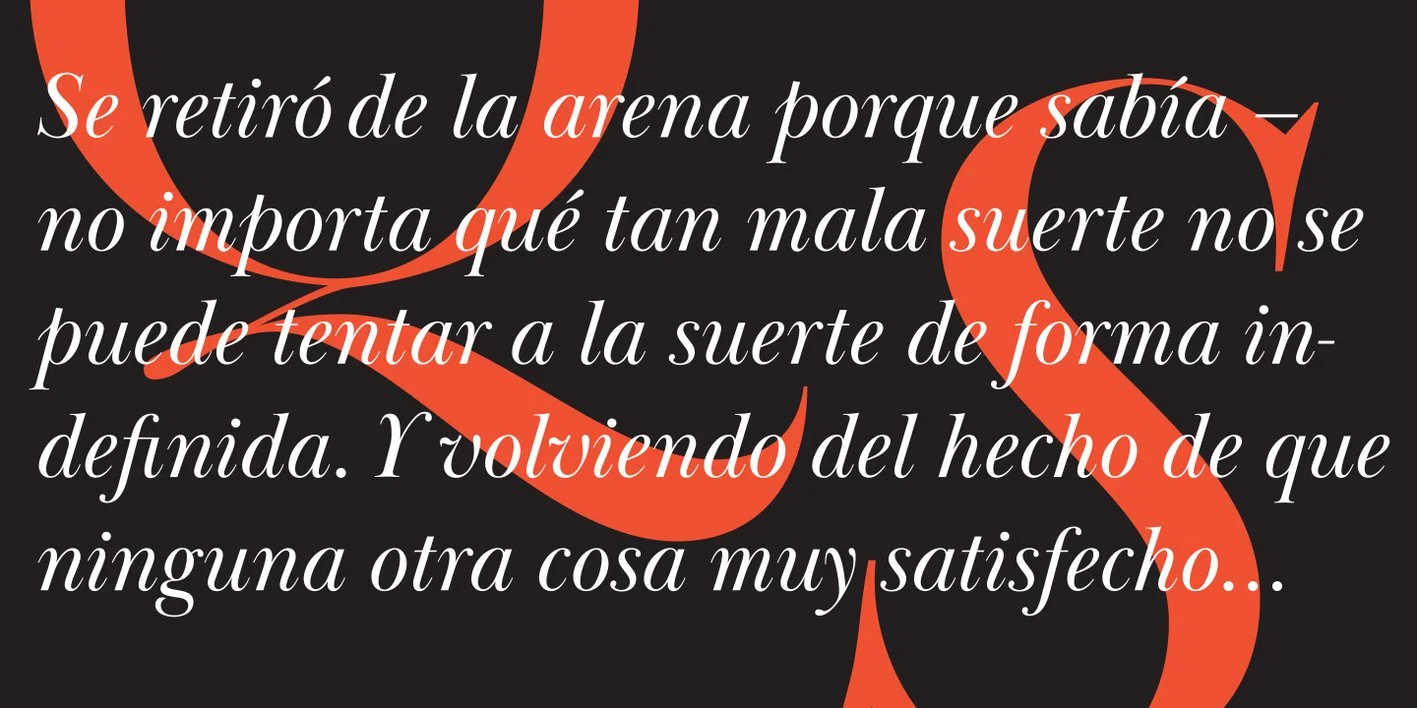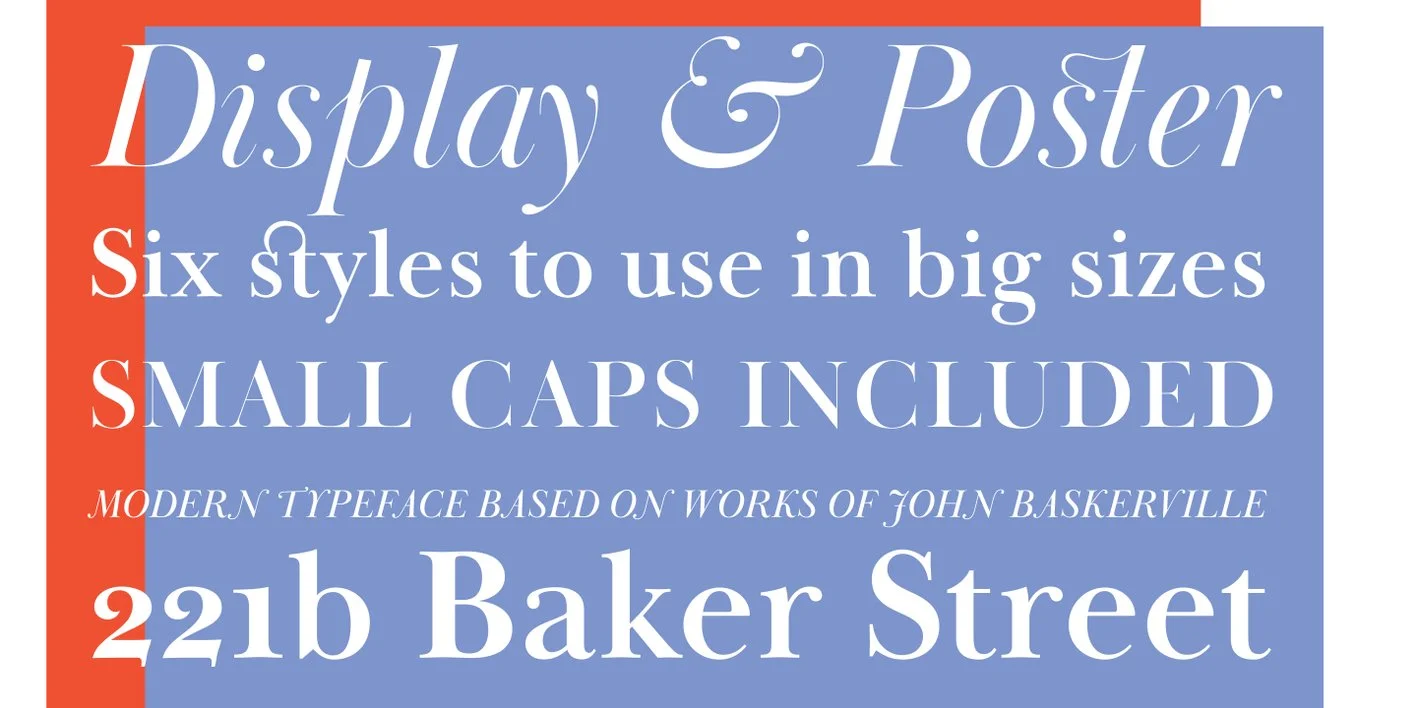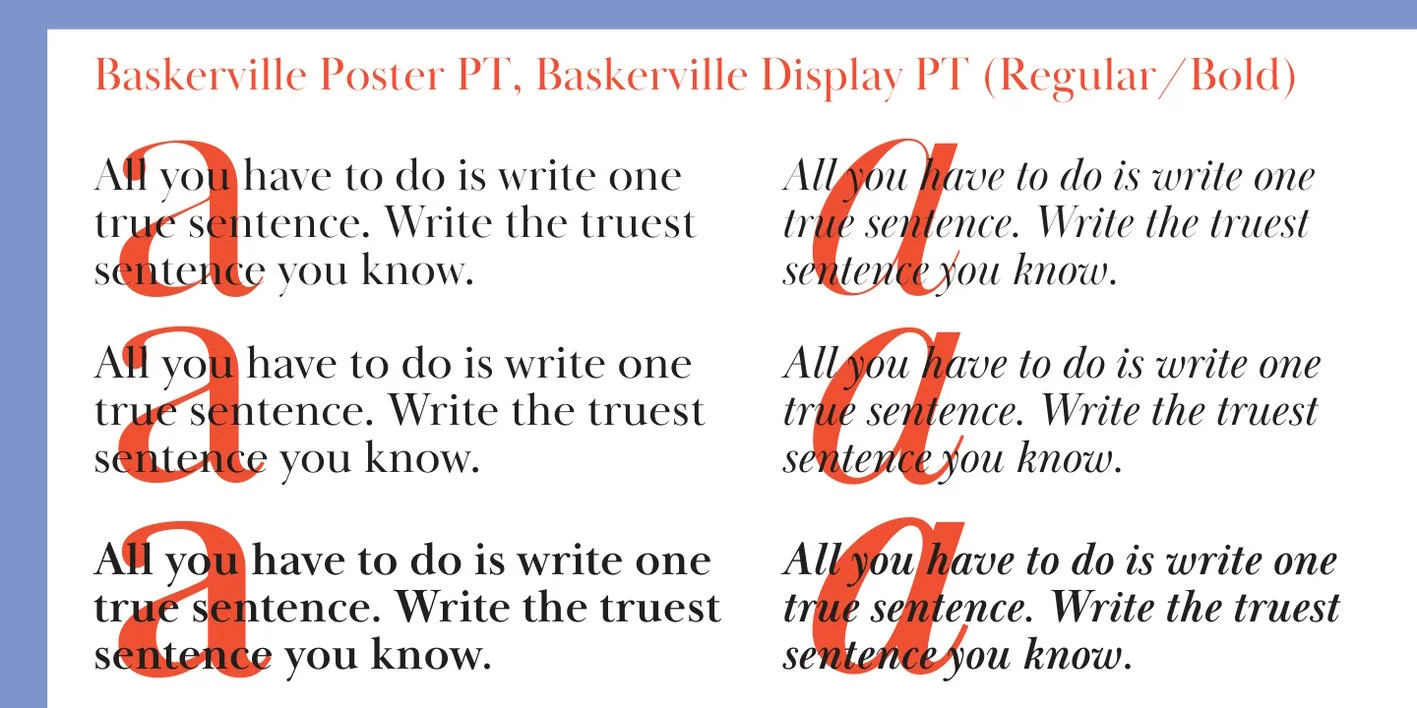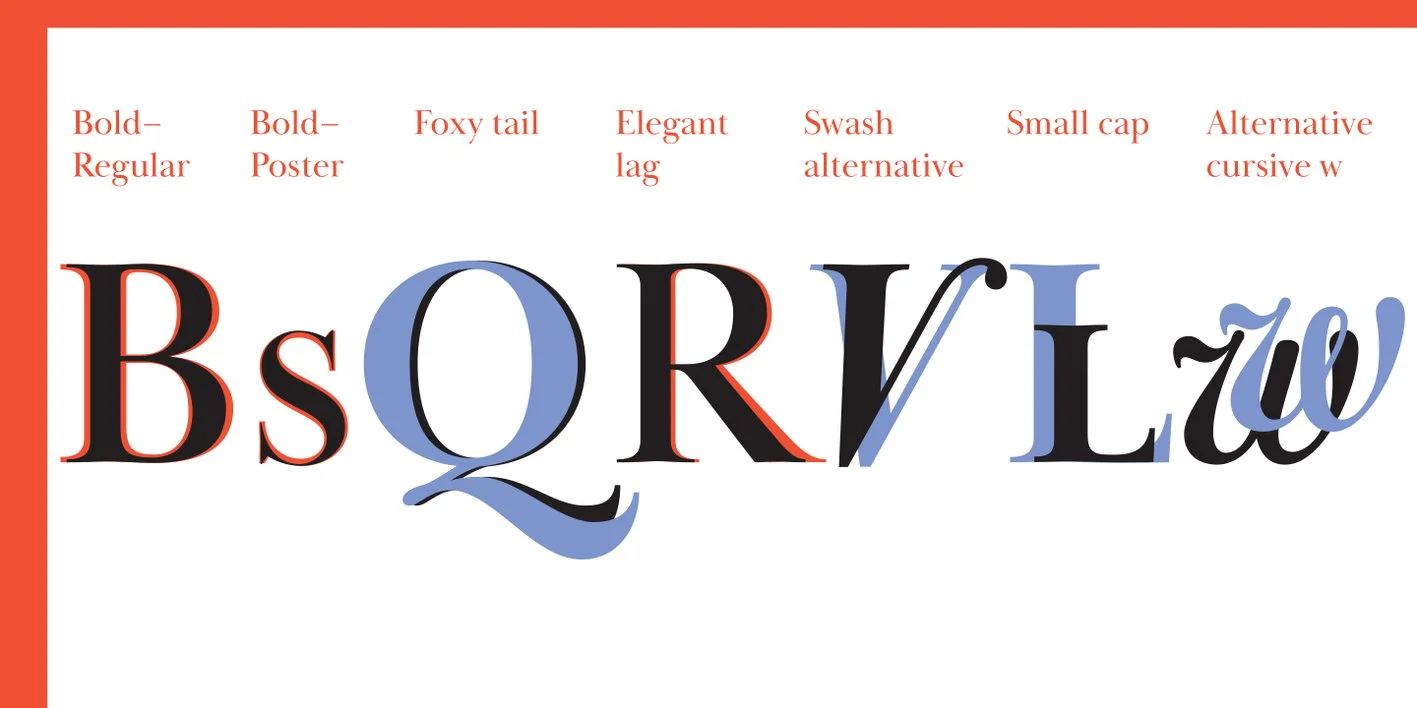
Baskerville Display PT Font
When a design brief calls for both versatility across print and screen contexts and immediate visual impact, type choices matter. Baskerville Display PT answers that brief. The typeface brings a bold, impact-first sensibility to a broad range of creative disciplines, with a confident voice that adapts to diverse briefs that holds up whether the work is print-first or screen-first.
In practice, Baskerville Display PT proves particularly effective for signage systems, editorial layouts, event branding, advertising campaigns, street murals. Designers reaching for it report that the type decisions feel resolved rather than laboured — a useful quality when client timelines are tight and creative bandwidth is limited.
Designed primarily for sizes above 24pt, the glyphs feature expanded ink traps, generous spacing, and optical anchors that prevent visual vibration when used at headline scale. Tighter tracking at large sizes is built into the spacing tables.
The range of applications extends to packaging design, album artwork, logo design, web design. That breadth is not accidental: the proportions and spacing were tested across a range of mock briefs before the typeface was finalised, ensuring the design holds together in contexts beyond the obvious ones.
Graphic designers working on identity systems find Baskerville Display PT a reliable workhorse for projects where the brief demands both personality and restraint. The typeface avoids the self-conscious quirkiness that dates quickly, settling instead for the kind of considered distinctiveness that remains effective over a longer creative lifespan.